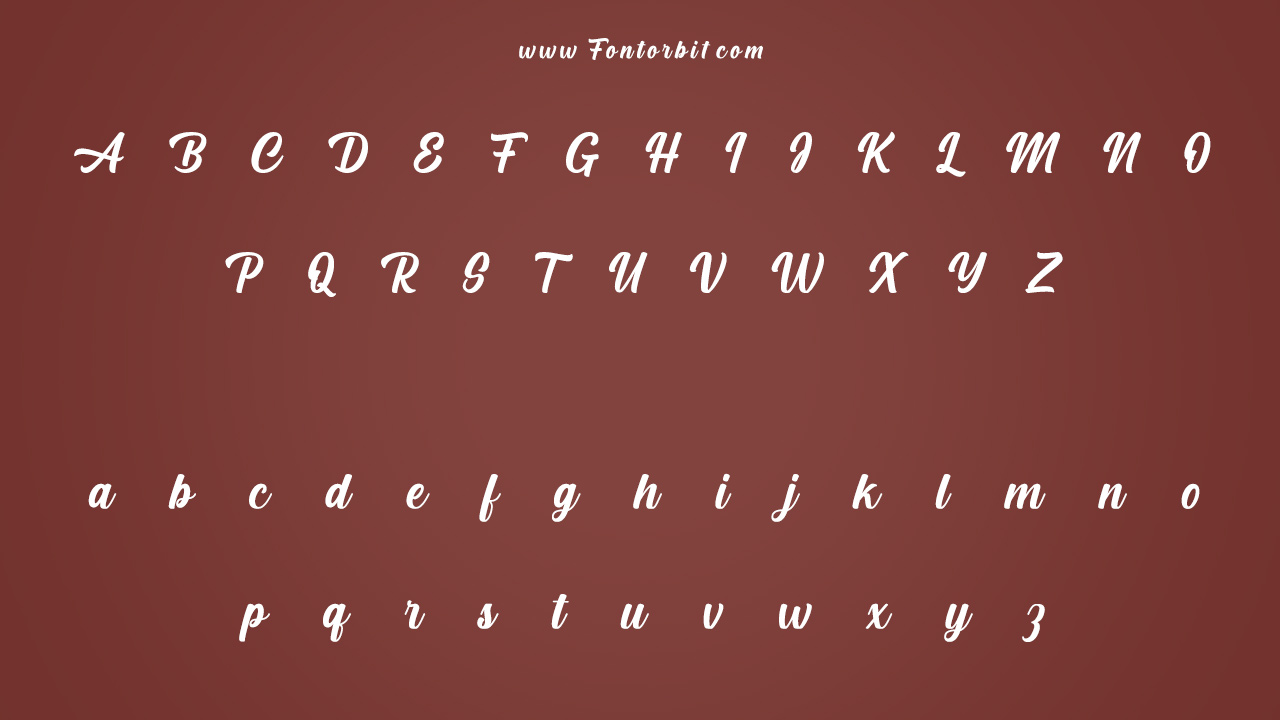
The Cream Cake font is a playful and elegant script font designed by EF Studio Types and first published in 2021. This stylish typeface belongs to the script font family and is characterized by smooth, rounded edges and a whimsical, handwritten style.
Cream Cake is widely used in creative designs that seek to capture a sweet, casual, and playful aesthetic, making it ideal for projects related to food, fashion, or anything requiring a delightful and relaxed touch.
Cream Cake Font Family Includes
The Cream Cake font family is known for its versatility and charm. It features soft, curvaceous letterforms that make it appealing for various graphic design projects. The font is available in multiple styles that offer different weights and characters. The Cream Cake family includes:
a. Cream Cake Regular
Each of these variants allows for a different take on the creamy, hand-written script style, making the font suitable for a variety of design projects, including branding, logos, social media graphics, and more.
Notable Uses Of Cream Cake
Cream Cake is perfect for projects requiring a friendly, handcrafted aesthetic. Here are a few notable uses of the Cream Cake font:
- Wedding invitations
- Bakeries and Cafés branding
- Greeting cards
- Fashion and lifestyle blogs
The Cream Cake font can be used in a wide range of designs and projects. Here are some ideal places where this font could shine:
- Personal branding
- Product packaging
- Event branding
- Logo design
- Social media posts
The Cream Cake font is a delightful and versatile script font that can be used to add a personal, sweet touch to any design. Its playful curves and handwritten style make it ideal for everything from personal invitations to branding for food businesses. If you’re looking for a font that embodies warmth and a whimsical aesthetic, Cream Cake is an excellent choice.
2.What Type Of Font Is Cream Cake?
It is a script font with a hand-lettered style.
4.What Projects Is Cream Cake Best Suited For?
Cream Cake is ideal for branding, invitations, social media posts, and product packaging.
5.Is Cream Cake Available In Bold Or Italic Styles?
Yes, the font family includes styles like Bold, Italic, and Bold Italic.